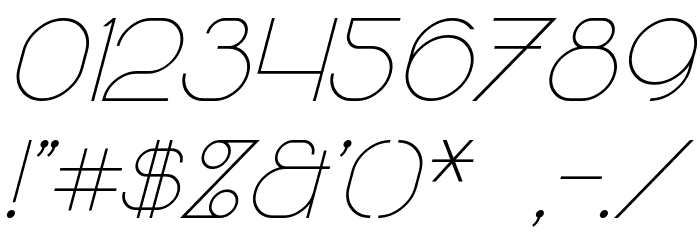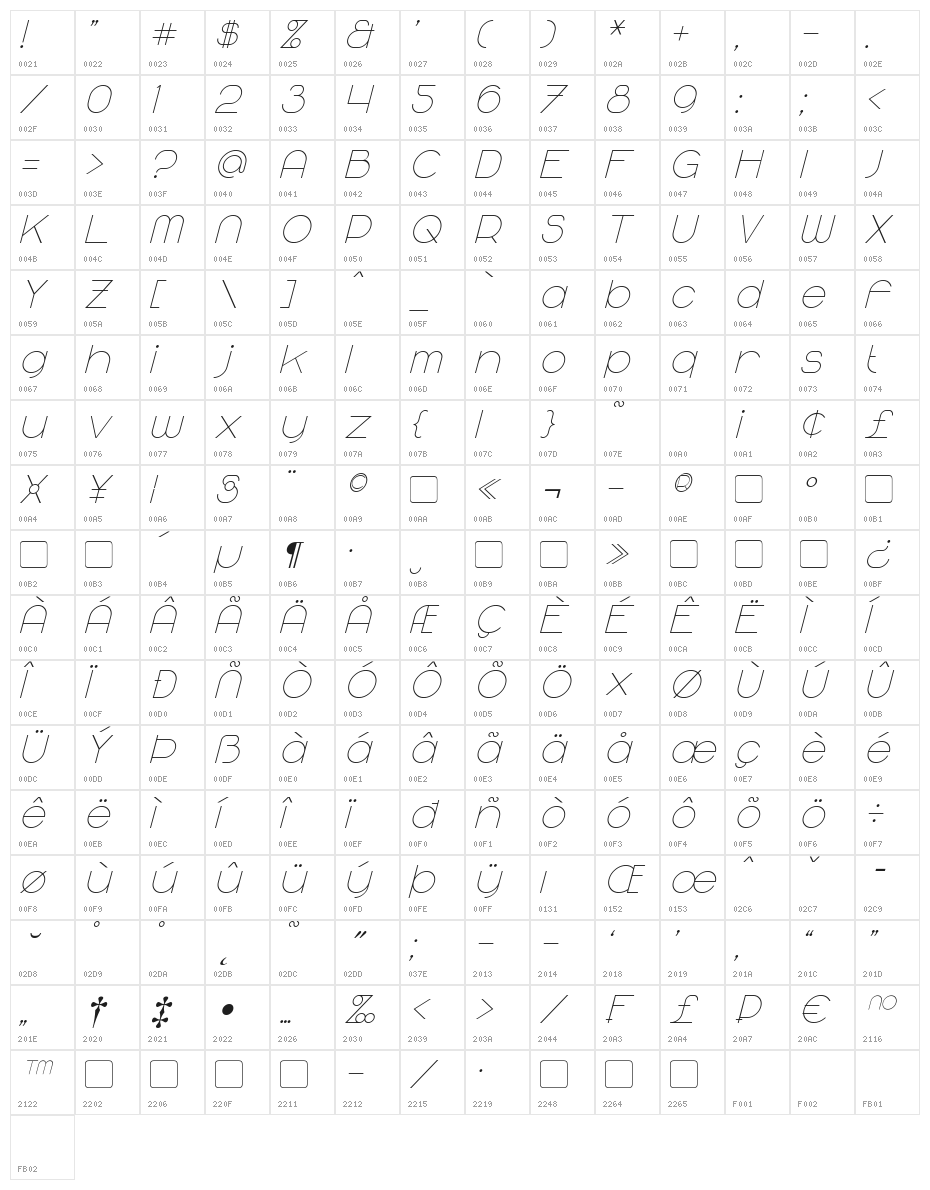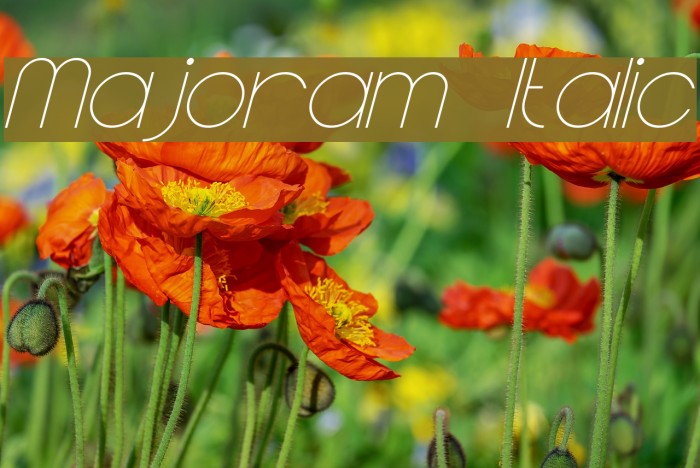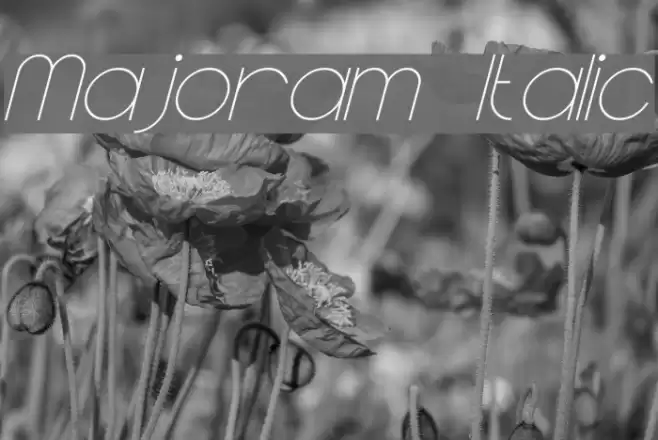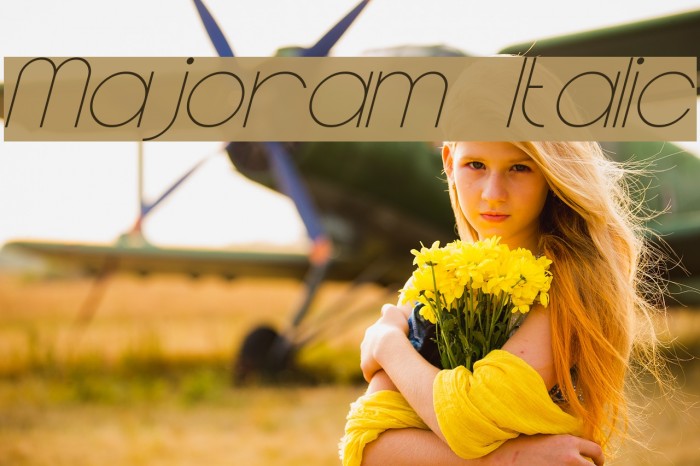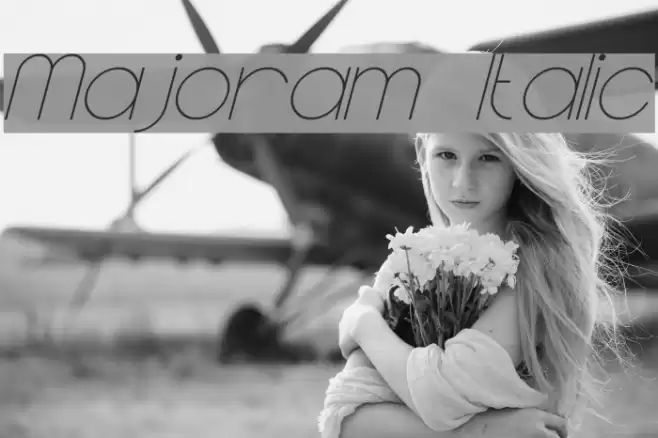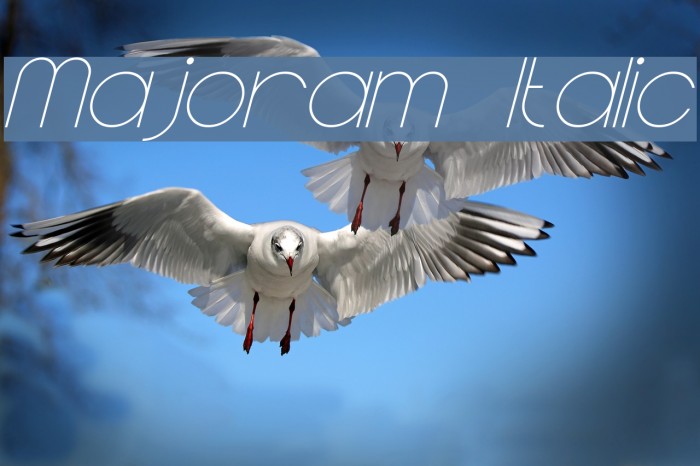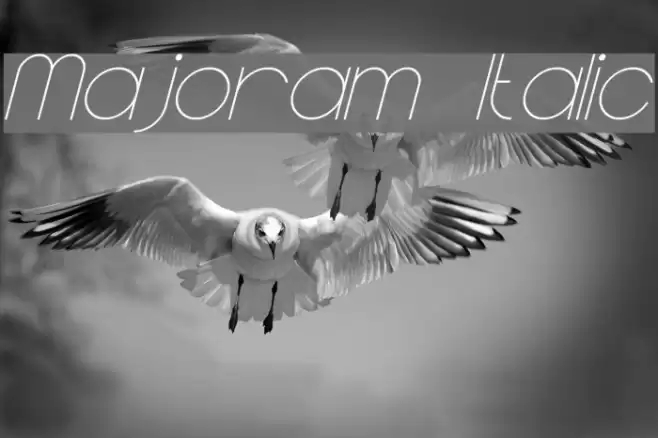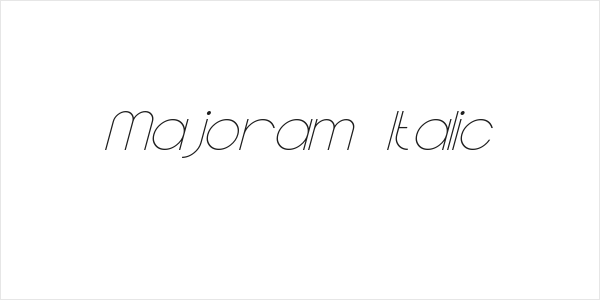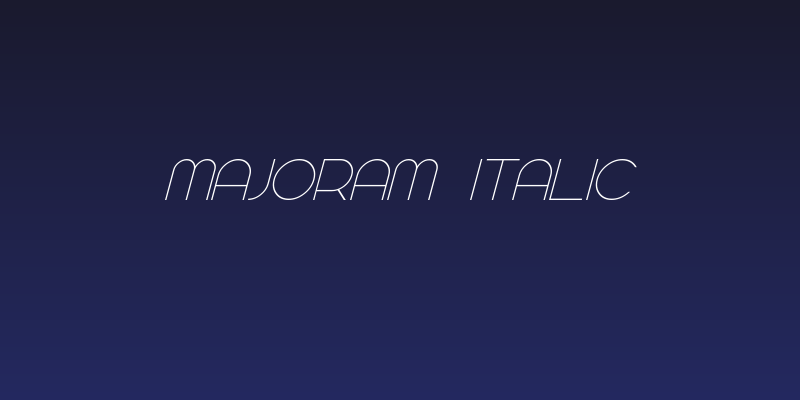
Majoram Italic Font
Majoram Italic Description
This font features a sleek, modern design with a distinct italic slant, giving it a dynamic and elegant appearance. The characters are crafted with smooth, continuous strokes that convey a sense of fluidity and motion. The uppercase and lowercase letters maintain a consistent style, with rounded edges and a uniform line weight that enhances readability. The numerals and special characters are designed to complement the alphabet, maintaining the same graceful curves and slanted orientation. This font's minimalist aesthetic makes it suitable for contemporary design projects, where clarity and style are paramount.
| Proposed Projects | Ideal for branding, fashion magazines, modern websites, and creative advertising. |